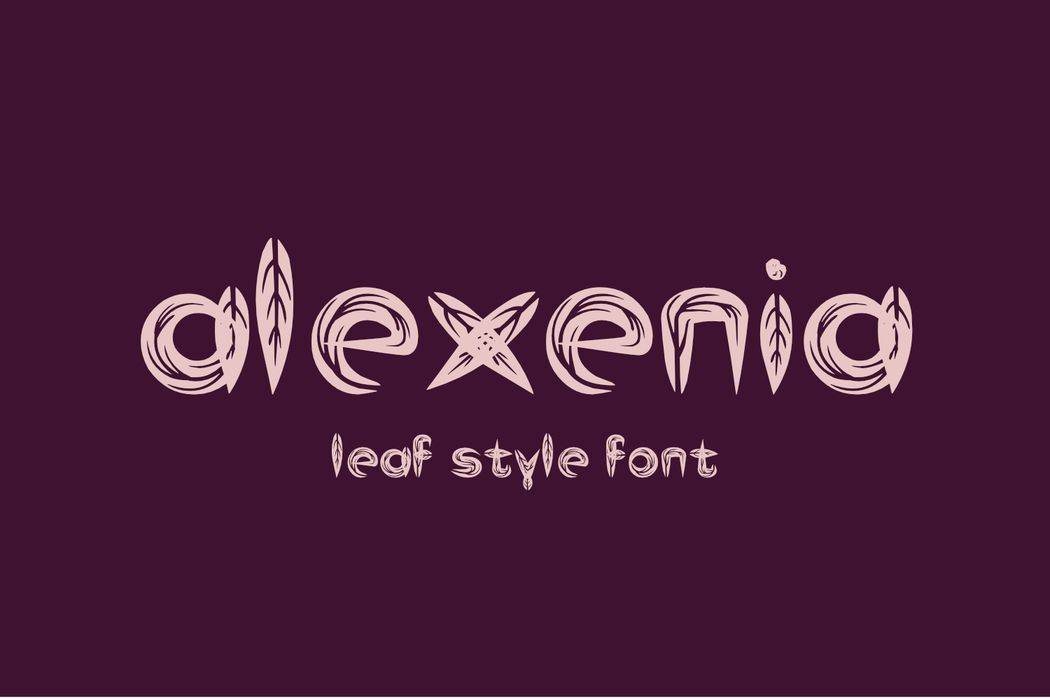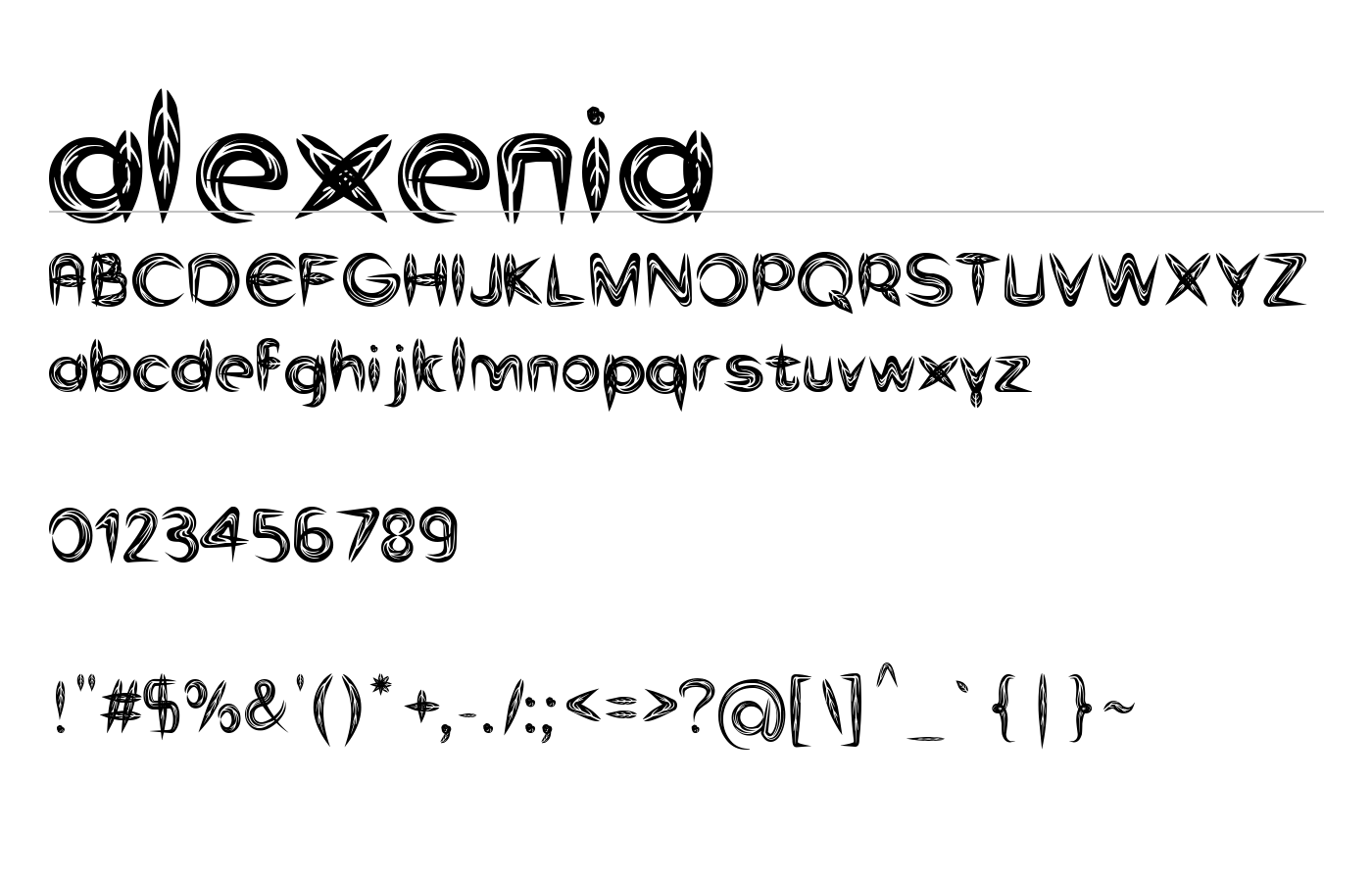
Alexenia is a decorative, playful sans serif font with a unique organic texture that mimics natural brush strokes or feather-like details. Its irregular shapes and lively character make it ideal for creative projects, logos, and posters that want to convey an artistic, quirky, and dynamic personality. This font stands out best in display sizes where its intricate design can be fully appreciated.
Alexenia Font
About Alexenia Font
| Font family | Alexenia Font |
| Designer | Lili Sadili |